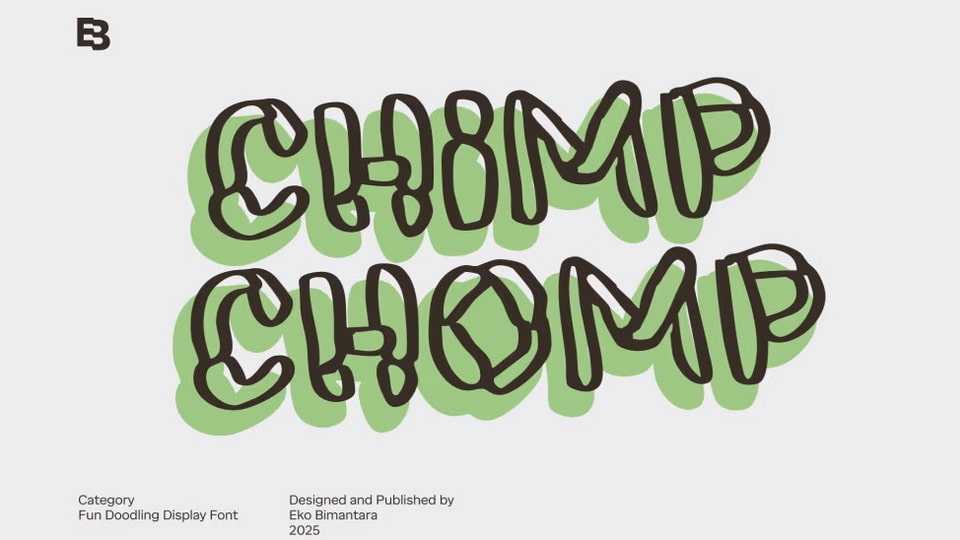
Download Chimp Chomp font, a quirky, doodle-style display typeface with a hand-drawn outline and playful character, featuring wonky lines and a scribbled appearance.